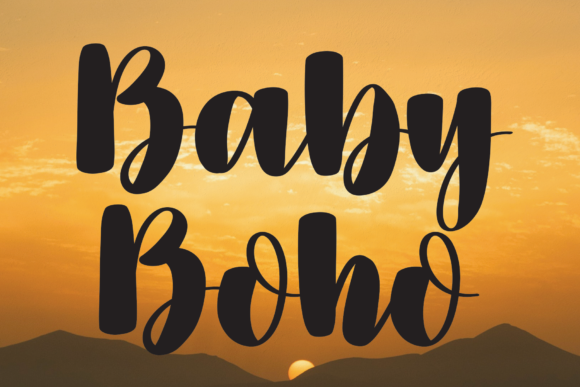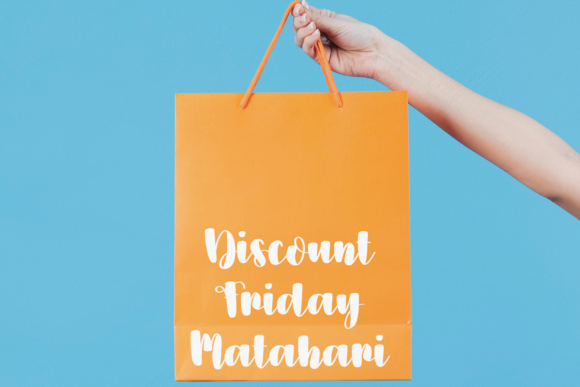
About Baby Boho Font
Baby Boho is a lovely script font featuring charming, playful characters that seem to dance along the baseline. Add this font to your most creative ideas, and notice how it makes them stand out!